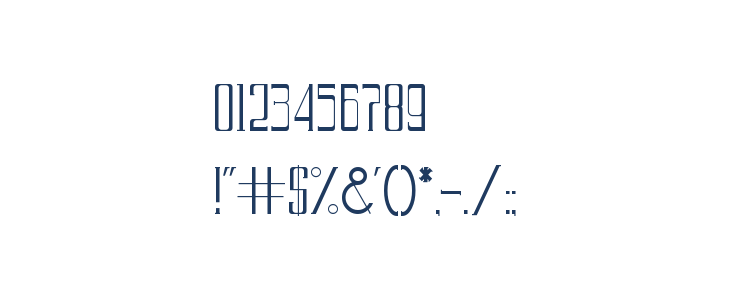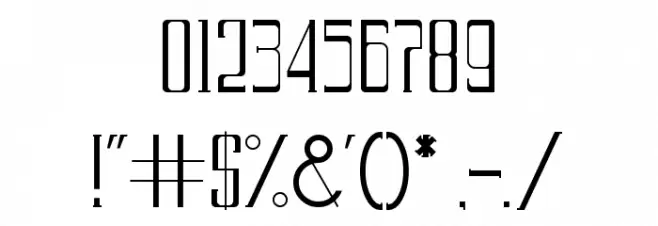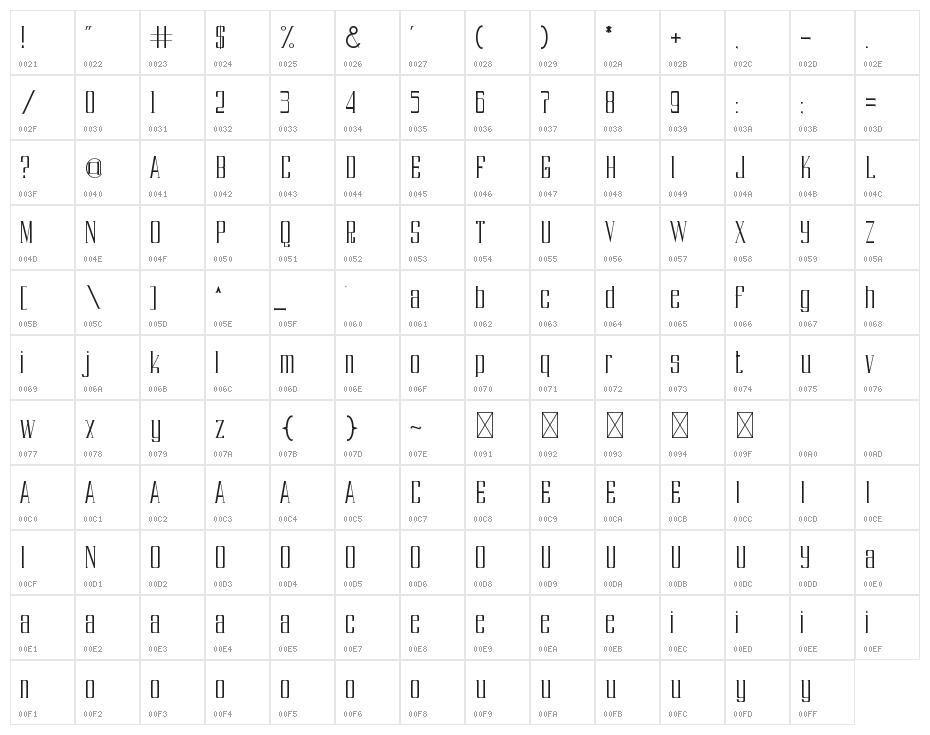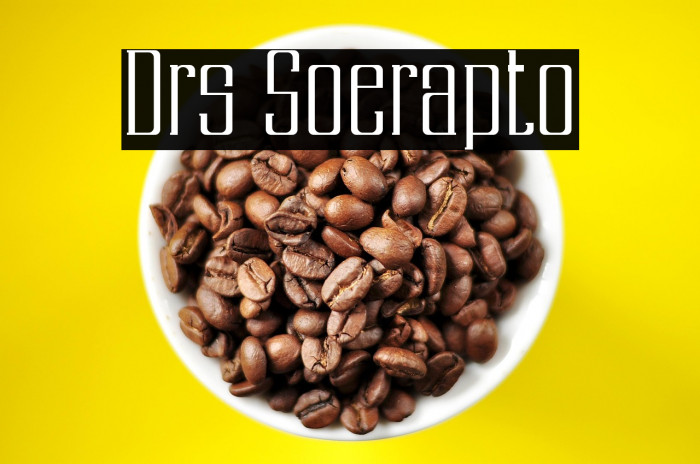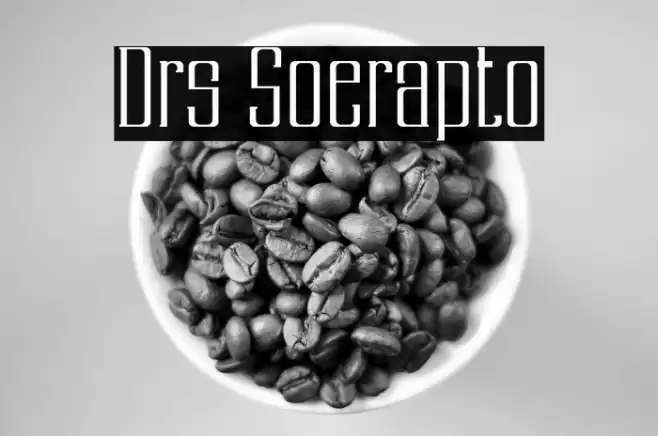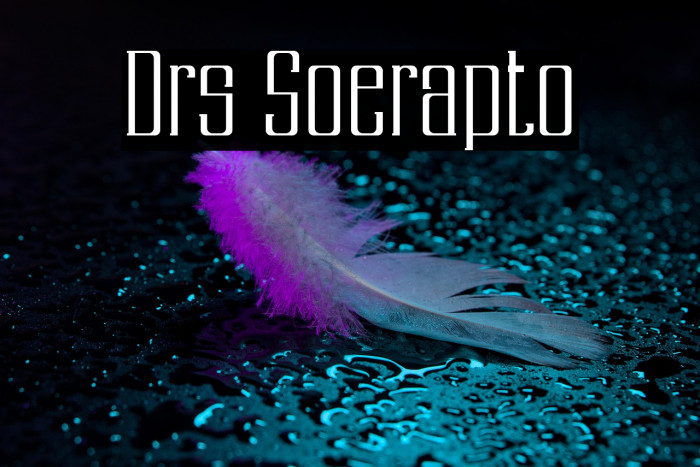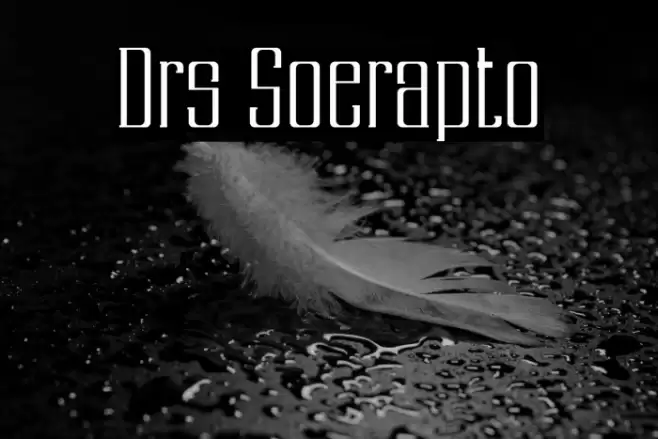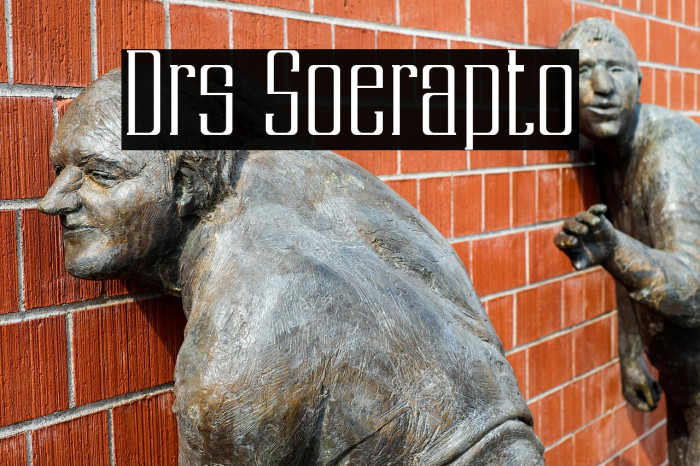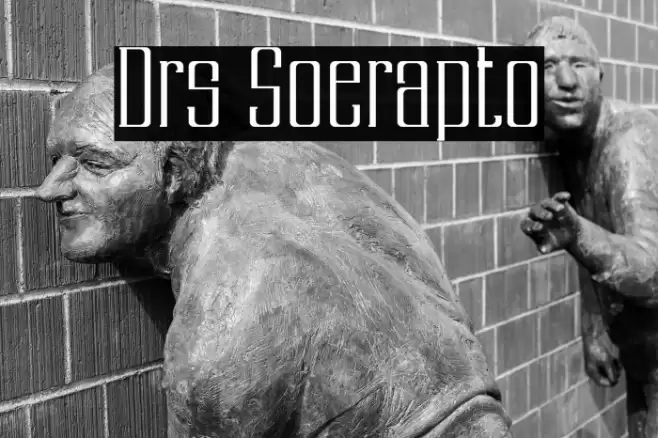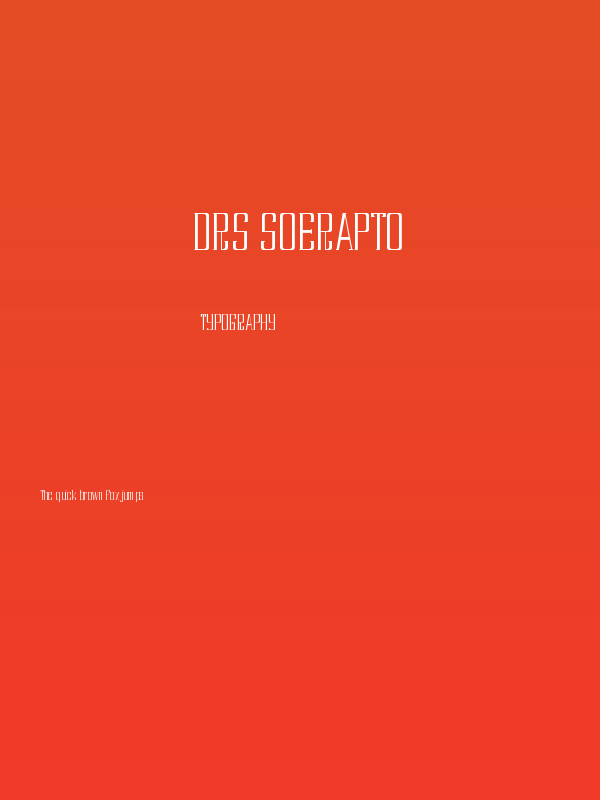
Drs Soerapto Font
Drs Soerapto Description
This font features a modern and sleek design with tall, narrow characters that exude a sense of elegance and sophistication. The uppercase letters are particularly elongated, giving them a distinctive presence. The lowercase letters maintain a consistent style, complementing the uppercase with their own refined appearance. Numbers are clear and easy to read, while the special characters add a touch of uniqueness with their stylish forms. The overall design is clean and minimalistic, making it suitable for a variety of applications where a contemporary and professional look is desired.
| Use Case | Headlines, Logos, Editorial design |
| Proposed Projects | Ideal for branding, editorial design, fashion magazines, and luxury product packaging. |